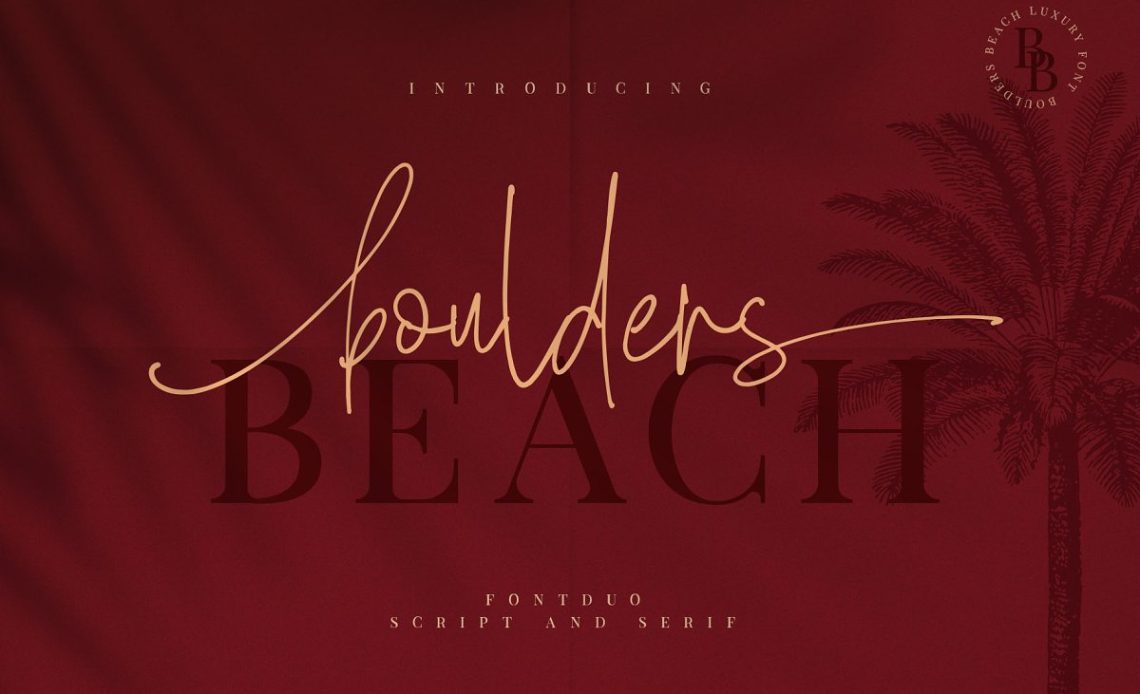
Are you on the hunt for the perfect font to elevate your fashion brand's identity? Look no further than Boulders Beach - Font Duo! Created by the talented Muhammad Naufal Anis, this font family boasts a modern and elegant style that is sure to impress.
The possibilities with Boulders Beach - Font Duo are endless! Use it for your logo, invitation, stationery, wedding designs, social media posts, advertisements, product packaging, product designs, label, photography, watermark, special events, or anything else you can dream up.
But what sets Boulders Beach - Font Duo apart from the rest? For starters, it's multilingual, meaning you can use it for projects in various languages. It also includes ligatures and alternates, giving you even more creative freedom. Plus, it's PUA encoded, ensuring easy access to all of its unique characters.